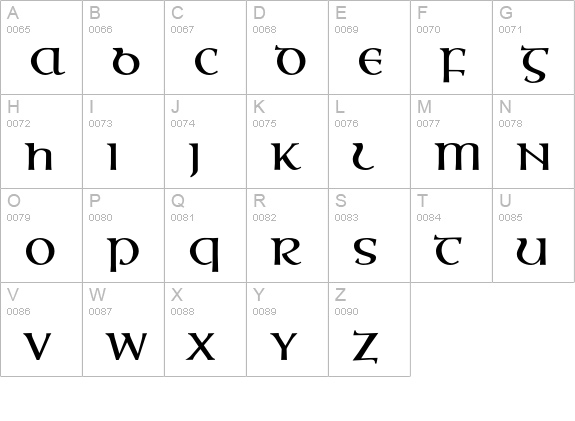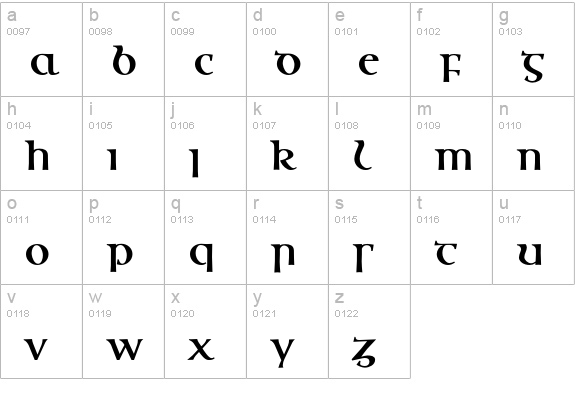
OssianGaelicEF-Bold is a strong, high-contrast variant in the OssianGaelicEF typeface family \xE2\x80\x94 well suited to headlines, attention-grabbing titles, and strong calls-to-action.
OssianGaelicEF-Bold is a striking and bold typeface that exudes elegance and sophistication. With its Gaelic-inspired design, this font is perfect for adding a touch of Celtic charm to your projects. The strong and commanding presence of OssianGaelicEF-Bold makes it ideal for headlines, titles, and other prominent text elements. The best part is that OssianGaelicEF-Bold is available for free download at FontsMarket.com. You can easily access this beautiful font and enhance your designs with its unique character and style. Don't miss out on the opportunity to add OssianGaelicEF-Bold to your font collection and elevate your creative projects to new heights.